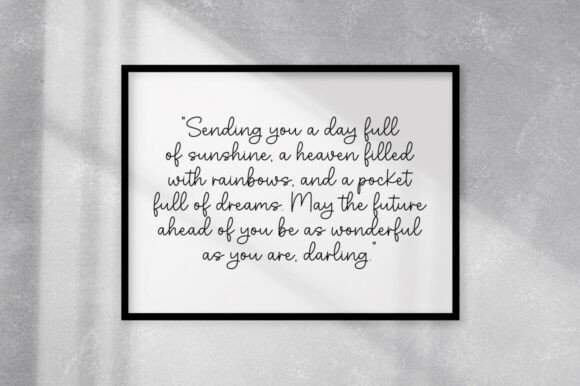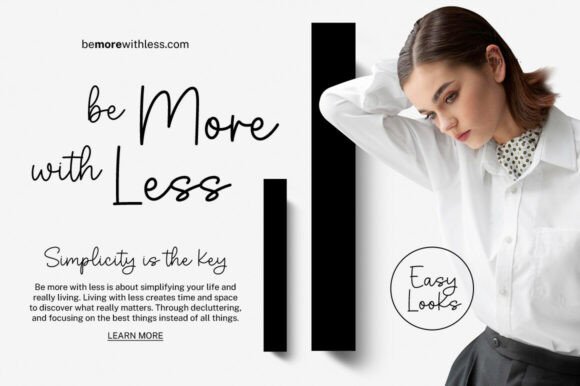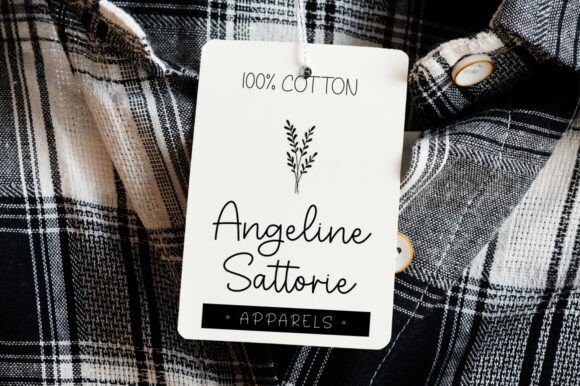
Introduction to Skylight Font
Skylight is a beautiful, well-balanced, and graceful script font.
Skylight is a beautiful, well-balanced, and graceful script font. It is defined by smooth curves and is perfect for fashion branding or editorial designs
Key Features of Skylight Font
Why Choose Skylight Font?